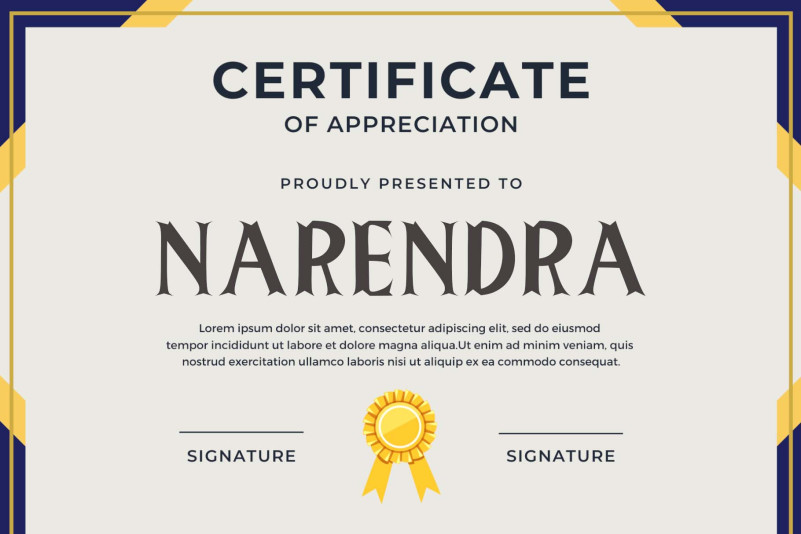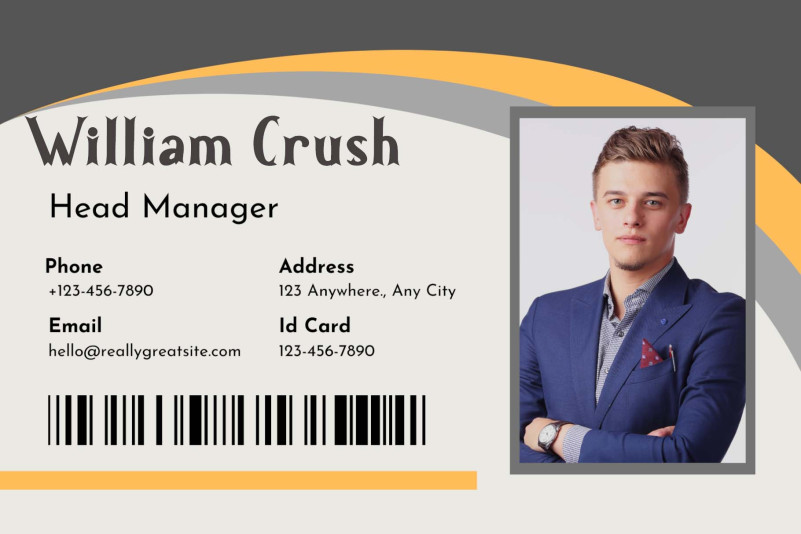
Amandez Font
Amandez Font is a modern serif font with an elegant and professional shape. This font is equipped with uppercase, lowercase, numerals, punctuations, and multilingual support. It is suitable for logos, banners, branding, mugs, ornaments, weddings, holidays, certificates, and more.